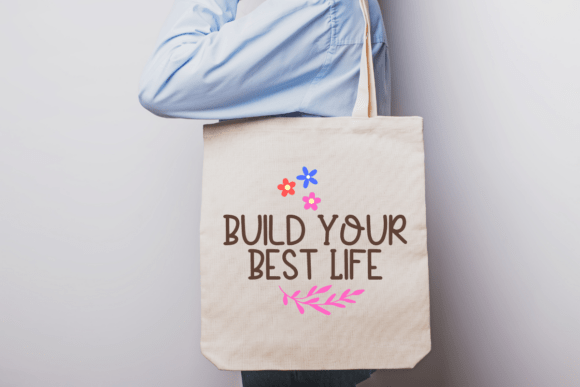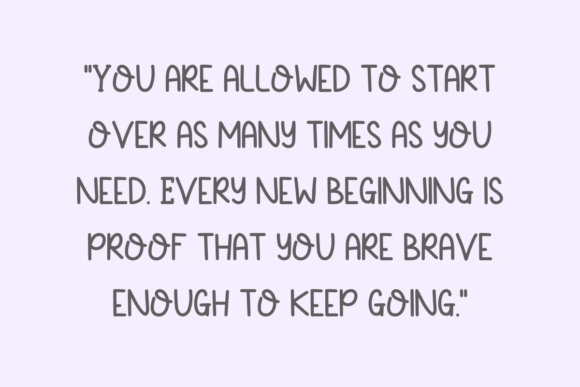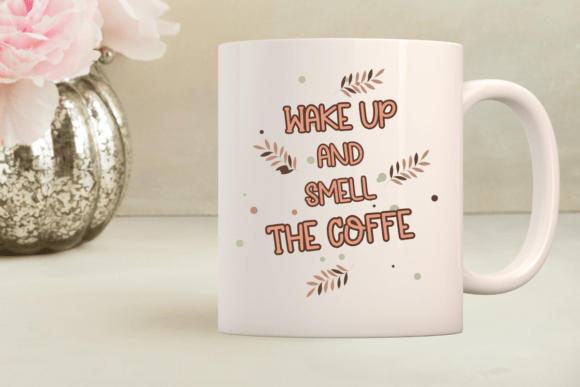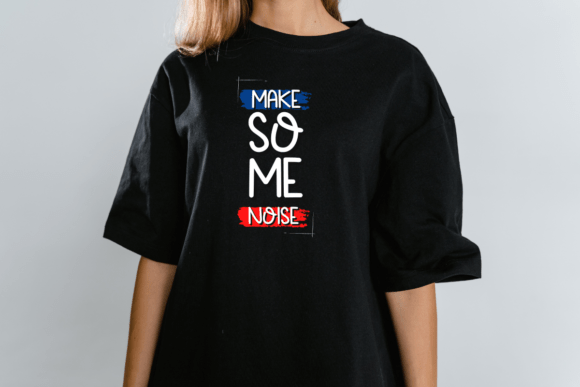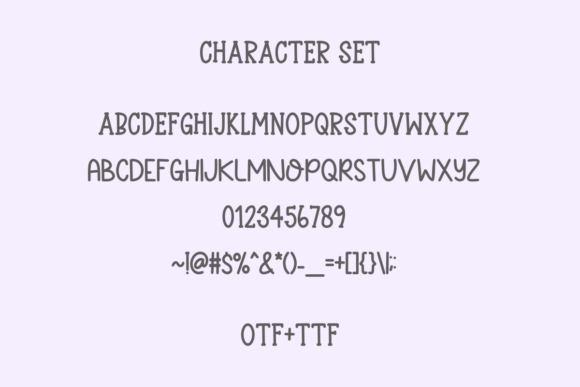
Introduction to Frame People Font
Have you ever been in the middle of a creative project, surrounded by colorful supplies and a blank page staring back at you, waiting for inspiration to strike? That’s exactly where I was when I discovered the Frame People Font – a playful handwritten font that’s perfect for bringing your ideas to life.
As a designer, I know how valuable it is to have a reliable design resource like Frame People Font in your toolkit. With its cute and friendly style, this font is ideal for crafts, planners, Kindle Direct Publishing (KDP) projects, stickers, greeting cards, and more. Whether you’re a crafter, designer, or maker, Frame People Font is a high-quality addition to any creative project.
Key Features of Frame People Font
- Designed with a unique, stylish aesthetic for modern designs
Honest Review: Frame People Font
I recently had the chance to work with the Frame People Font, and I’m excited to share my honest thoughts with you. As a designer, I’m always on the lookout for high-quality design resources that can elevate my creative projects.
Overall, I’m impressed with the Frame People Font and would definitely recommend it to designers looking for a high-quality, free design resource.
Frame People Font
Tips for Getting the Most Out of Frame People Font
Use Frame People Font with a transparent background to achieve a clean and minimalist look. Experiment with different font sizes and styles to add depth and interest to your design. Consider pairing Frame People Font with other high-quality design resources to create a cohesive and visually appealing creative project.
Frame People Font is ideal for social media graphics, blog posts, and marketing materials. Its clean and modern design makes it perfect for a variety of creative projects, from business cards to brochures.